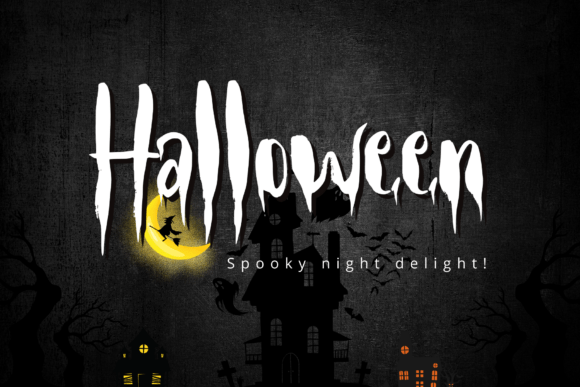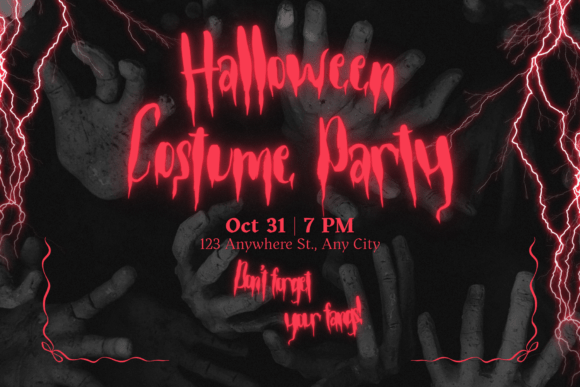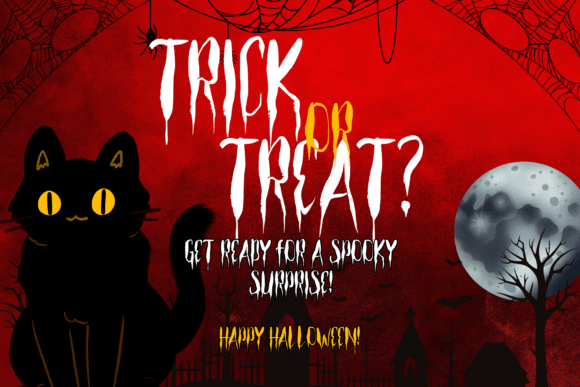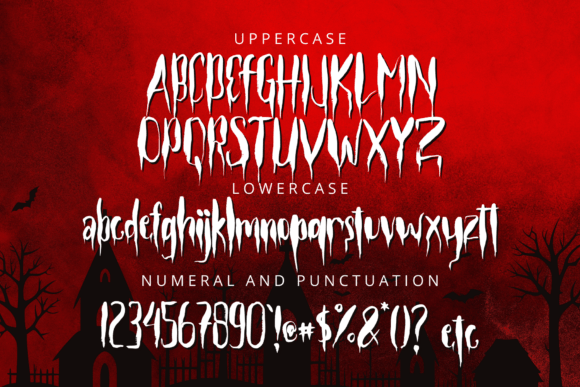
Unleash the Horror with Blackdeath Font: The Ultimate Display Font for Spooky Designs
Are you looking for a font that can add a chilling touch to your designs? Do you want to create a spooky atmosphere that will leave your audience shivering with fear? Look no further than Blackdeath Font, a horror display font inspired by dripping blood and spooky Halloween vibes. In this article, we’ll explore the features and benefits of Blackdeath Font, and show you how to use it to create terrifyingly awesome designs.
The Inspiration Behind Blackdeath Font
Blackdeath Font is a unique and terrifying display font that draws inspiration from the darker side of life. Its sharp strokes and liquid style are reminiscent of dripping blood, making every letter look alive with fear. The font’s design is carefully crafted to evoke the spooky vibes of Halloween, making it perfect for seasonal designs, horror movie titles, and creepy quotes.
Key Features of Blackdeath Font
So, what makes Blackdeath Font so special? Here are some of its key features:
- Sharp Strokes: Blackdeath Font features sharp, jagged strokes that give it a menacing and aggressive look.
- Liquid Style: The font’s liquid style is inspired by dripping blood, adding a sense of movement and life to each letter.
- Terrifyingly Awesome: Blackdeath Font is designed to evoke fear and unease, making it perfect for horror-themed designs.
- High-Quality Design: The font is carefully crafted with attention to detail, ensuring a high-quality design that’s perfect for professional projects.
Use Cases for Blackdeath Font
Blackdeath Font is a versatile font that can be used in a variety of design projects. Here are some use cases to get you started:
- Halloween Posters: Create eye-catching Halloween posters that will grab attention and set the tone for a spooky celebration.
- Haunted Party Invitations: Design creepy invitations that will leave your party guests shivering with fear.
- Creepy Quotes: Add a chilling touch to your quotes and sayings with Blackdeath Font.
- Horror Movie Titles: Create terrifyingly awesome movie titles that will leave audiences shivering with fear.
- Designs that Need a Chilling Touch: Blackdeath Font is perfect for any design project that needs a spooky and eerie atmosphere.
Benefits of Using Blackdeath Font
So, why should you use Blackdeath Font in your designs? Here are some benefits to consider:
- Instantly Stand Out: Blackdeath Font is a unique and attention-grabbing font that will instantly make your designs stand out.
- Create a Spooky Atmosphere: The font’s terrifyingly awesome design will help create a spooky atmosphere that’s perfect for Halloween and horror-themed designs.
- High-Quality Design: Blackdeath Font is a high-quality font that’s designed with attention to detail, ensuring a professional look and feel.
- Easily Customizable: The font is easily customizable, allowing you to adjust the size, color, and style to fit your design needs.
Tips for Using Blackdeath Font
Here are some tips for using Blackdeath Font in your designs:
- Use it Sparingly: Blackdeath Font is a bold and attention-grabbing font, so use it sparingly to avoid overwhelming your design.
- Pair it with Other Fonts: Pair Blackdeath Font with other fonts to create a unique and visually appealing design.
- Experiment with Colors: Experiment with different colors to find the perfect shade that matches your design’s mood and atmosphere.
- Pay Attention to Size: Make sure to adjust the font size to fit your design needs, as Blackdeath Font can be quite bold and overwhelming.
| Font Name | Blackdeath Font |
| Author | Nox Studio |
Blackdeath Font is a terrifyingly awesome display font that’s perfect for horror-themed designs, Halloween posters, haunted party invitations, creepy quotes, and horror movie titles. Its sharp strokes and liquid style make every letter look alive with fear, adding a chilling touch to your designs. With Blackdeath Font, your project will instantly stand out and bring a truly scary atmosphere. So, don’t be afraid to unleash the horror and try Blackdeath Font today!